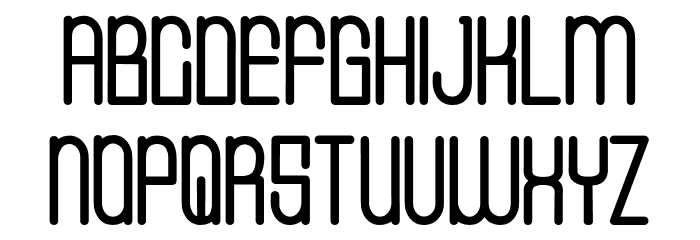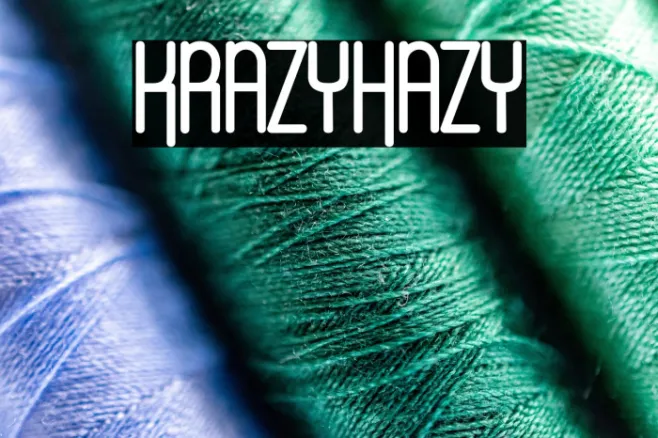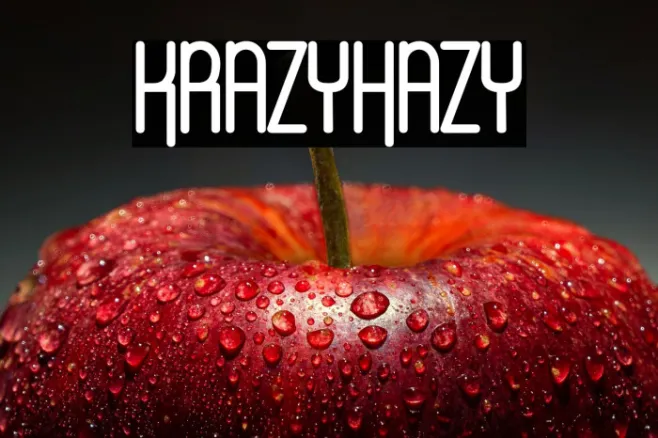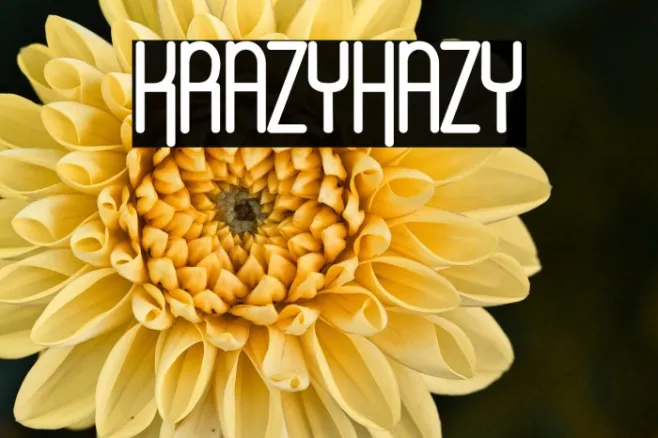
KrazyHazy Font
This font features a unique, rounded style with consistent stroke thickness, giving it a modern and playful appearance. The characters are elongated vertically, creating a sleek and streamlined look. The uppercase letters are particularly distinctive, with a uniform height and width that enhances readability. The lowercase letters maintain the same rounded aesthetic, ensuring cohesion across the typeface. The numbers and special characters are designed to match the overall style, making them suitable for various applications. This font's clean lines and contemporary feel make it a versatile choice for creative projects.
A modern, rounded font with consistent stroke thickness and a playful aesthetic.
- Proposed Projects: Ideal for branding, packaging design, posters, and digital media where a modern and playful tone is desired.
- Use Case: Headlines, Logos, Branding